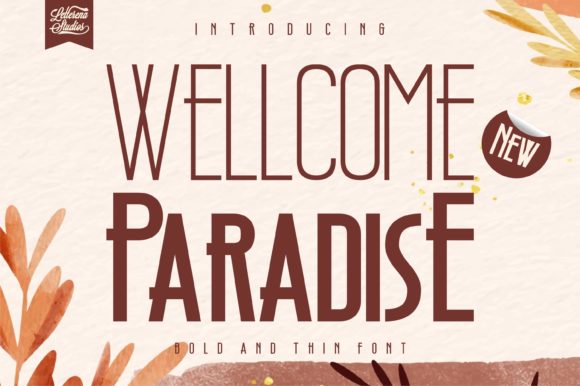
Introducing Wellcome Paradise Font: An Enticing Journey into Modern Sans Serif Typography
Welcome to the world of Wellcome Paradise, a captivating sans serif font family that unravels a universe of typographic possibilities. Crafted by the skilled artisans at Letterena Studios, this font duo embarks on a voyage of elegance, versatility, and modernism. It promises to transform your creative visions into tangible masterpieces that resonate with your audience.
Step into a realm of limitless possibilities with Wellcome Paradise, a font that effortlessly complements logos, wedding invitations, headings, t-shirts, letterheads, signage, labels, news, posters, and badges. Its bold and thin styles intertwine harmoniously, allowing you to create captivating contrasts and harmonious compositions that captivate and inspire.
With Wellcome Paradise, simplicity meets sophistication. Its clean lines and minimalist aesthetic exude an air of professionalism, while its subtle curves hint at a playful charm. This duality makes it the perfect choice for projects that demand both authority and approachability.
Unleash the boundless potential of Wellcome Paradise and let your imagination soar. Whether you're a seasoned designer or just starting your typographic journey, this font family will empower you to create designs that leave a lasting impression. Its versatility extends beyond visual appeal; it effortlessly adapts to various screen sizes, ensuring your designs translate seamlessly across digital platforms.
As you embark on your creative odyssey with Wellcome Paradise, you'll discover a font that not only enhances your designs but also connects with your audience on an emotional level. Its inherent elegance evokes a sense of sophistication, while its versatility lends itself to a myriad of applications, making it the ultimate choice for designers seeking a font that sparks creativity.